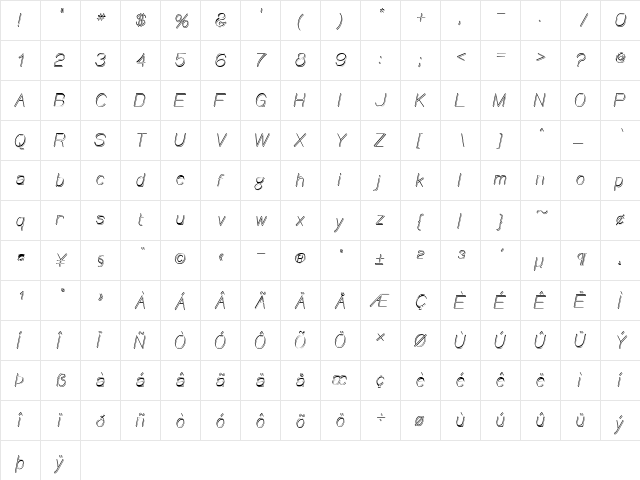
Canin Regular Font Preview
Canin Regular
Canin Regular Font Details
| Foundry | Graham Meade - Experimental |
Design Context for Canin Typeface
Canin is a composed and adaptable typeface that performs quietly and consistently across a wide range of design contexts.